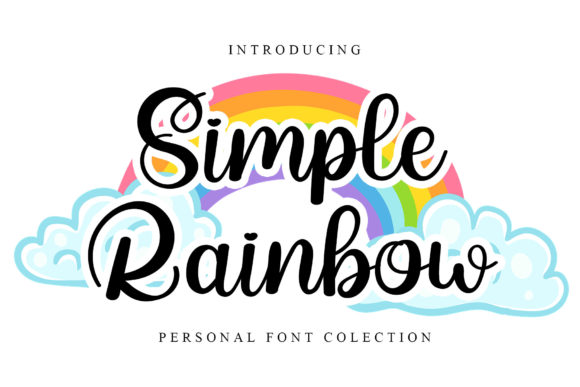
Indulge in the whimsical charm of Simple Rainbow Font, a delightful script that embodies joy and spontaneity. Expertly crafted by Flower, this font captivates with its rounded letters and effortlessly chic style.
Imagine transforming your design visions into vibrant masterpieces. Simple Rainbow Font is your perfect partner for wedding invitations, greeting cards, and logos. Its playful nature adds a touch of magic to any message, enchanting beholders with its captivating allure.
Elevate your brand identity with a logo that radiates personality. Simple Rainbow Font's unique curves and delicate strokes create a lasting impression that sets your business apart. Express your creativity through eye-catching billboards and captivating business cards, leaving an unforgettable mark on your audience.
Whether it's a handwritten note or a grand design, Simple Rainbow Font empowers you to infuse your creations with a touch of enchantment. Embrace the joy of expression and let your imagination soar with this enchanting font.